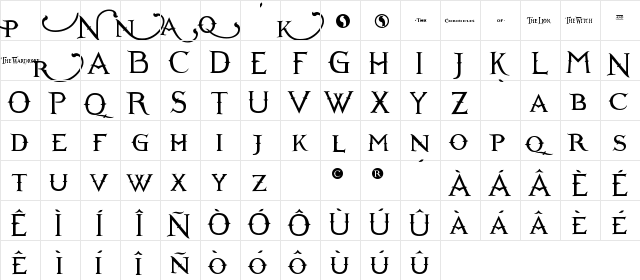
Narnia BLL Regular
| Designer | Bajo la Luna Producciones - Luis Huacuja Garc |
Design Context for Narnia BLL Typeface
Narnia BLL is a composed and adaptable typeface that performs quietly and consistently across a wide range of design contexts.